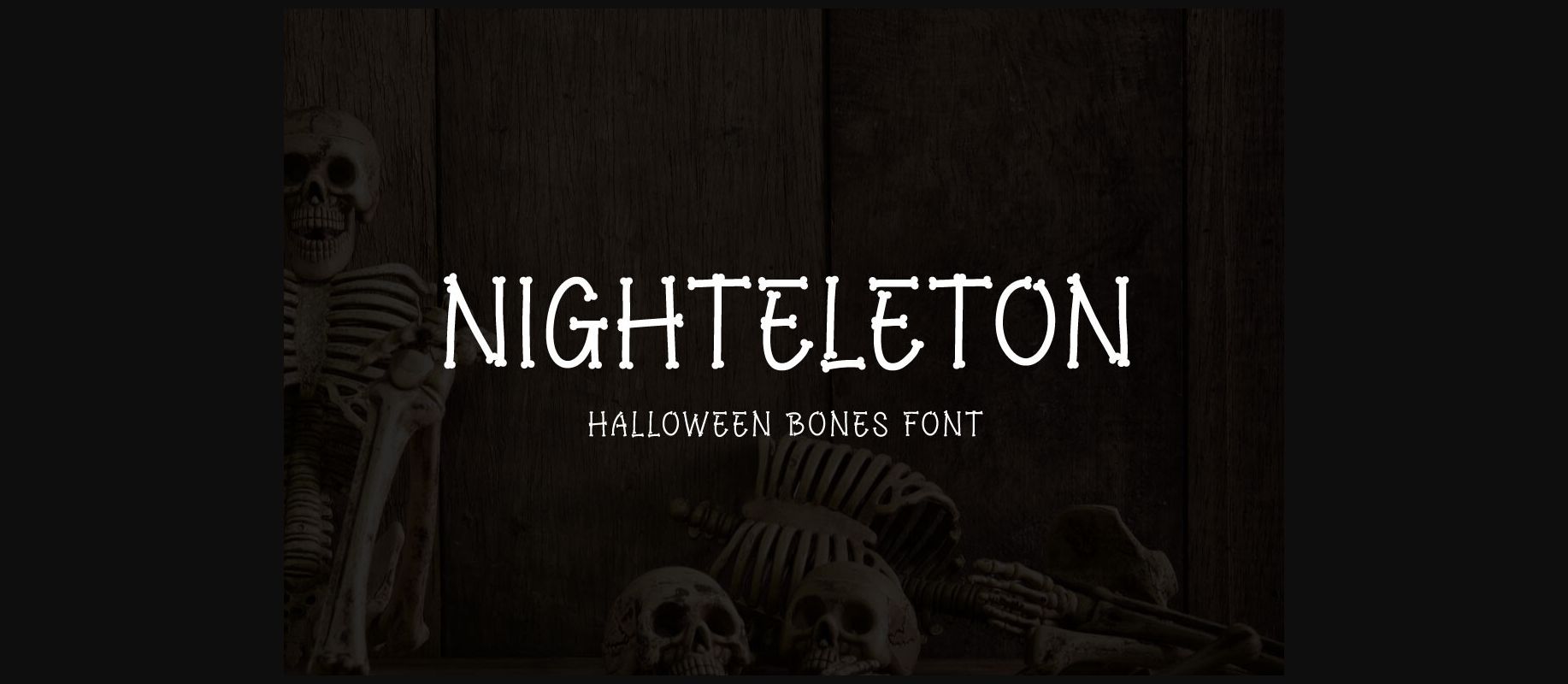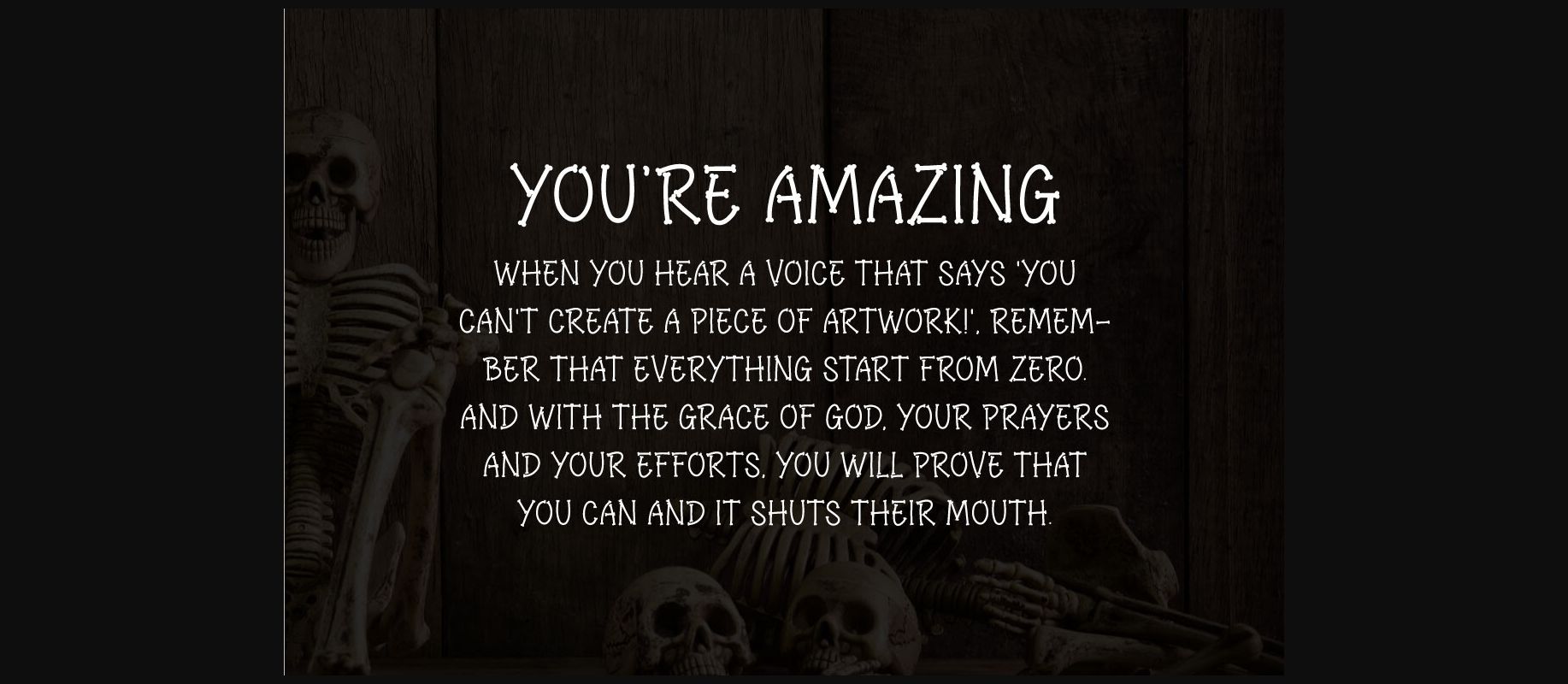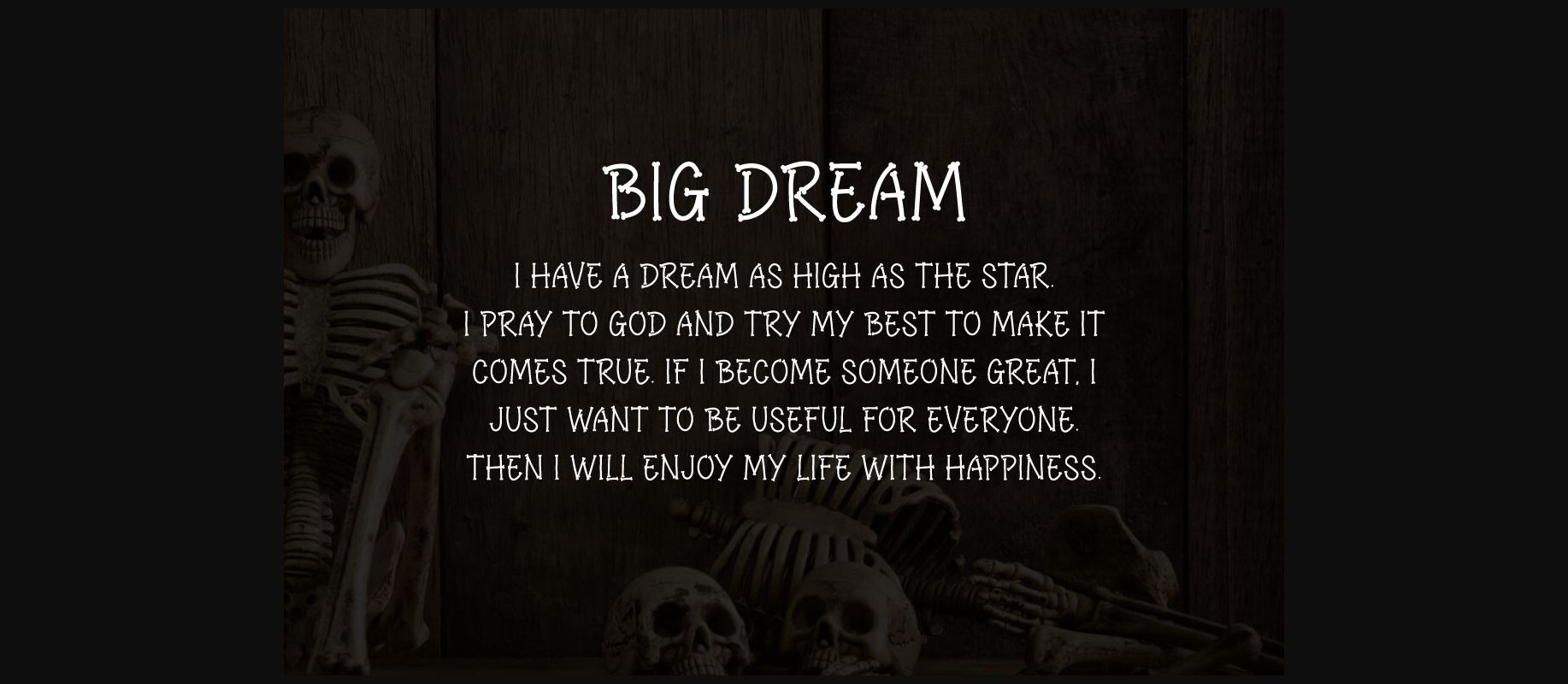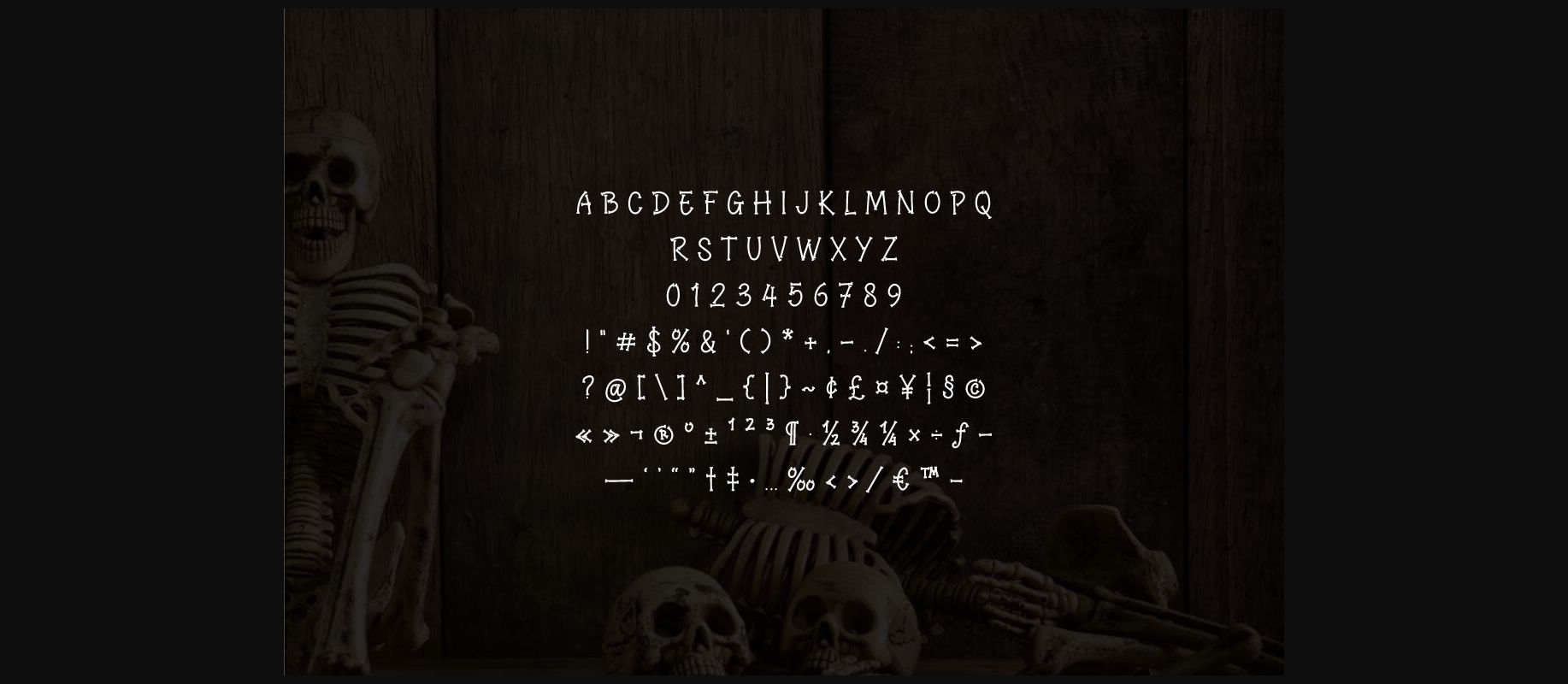
Nighteleton Font
About Nighteleton Font
Nighteleton font: Where letters come to life as eerie bones! This Halloween display font adds a spine-chilling touch to your designs. Perfect for spooky posters, creepy invitations, and all things Halloween, Nighteleton is the font that brings your text to the afterlife.